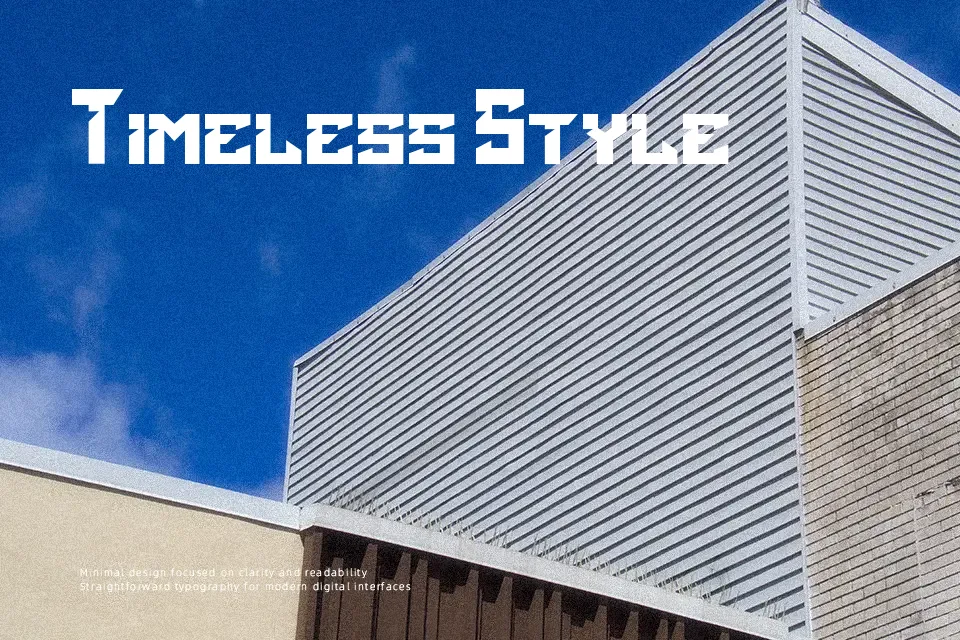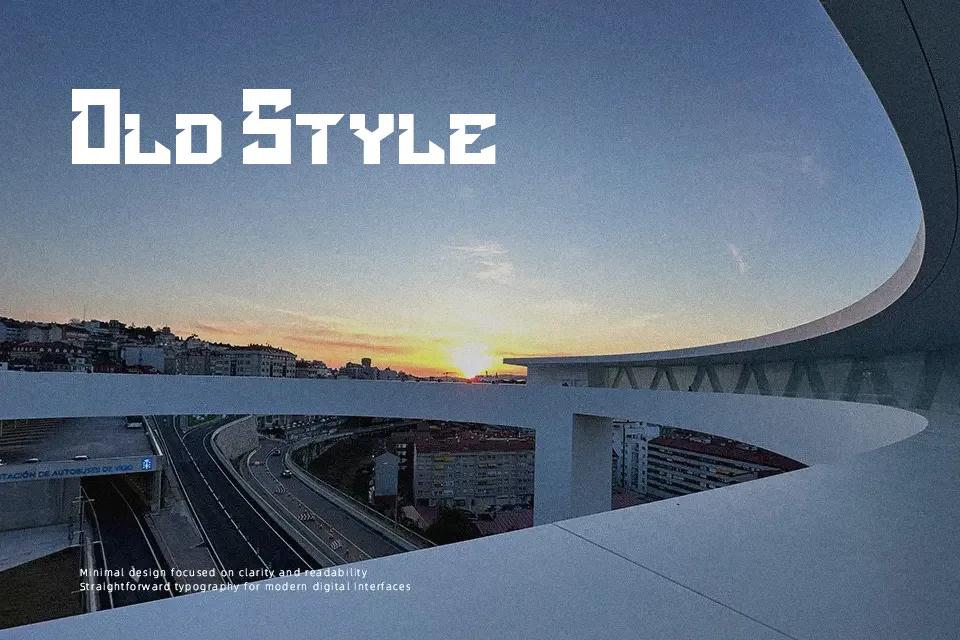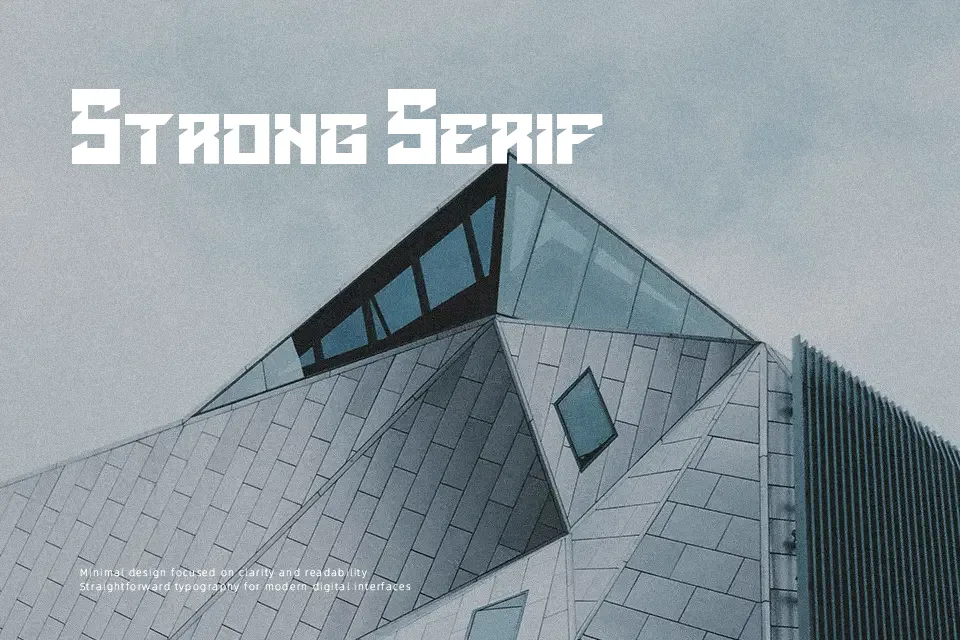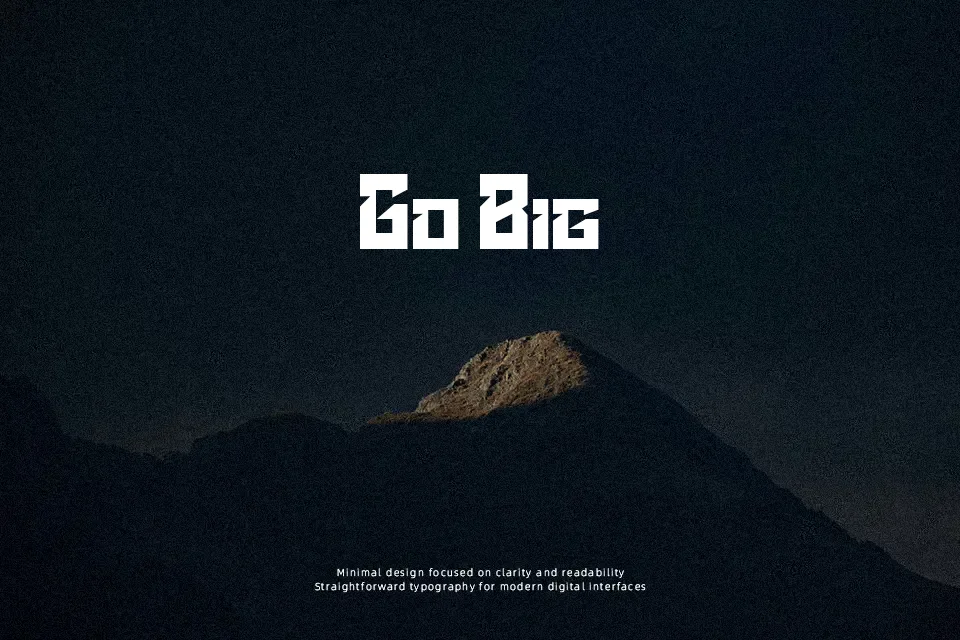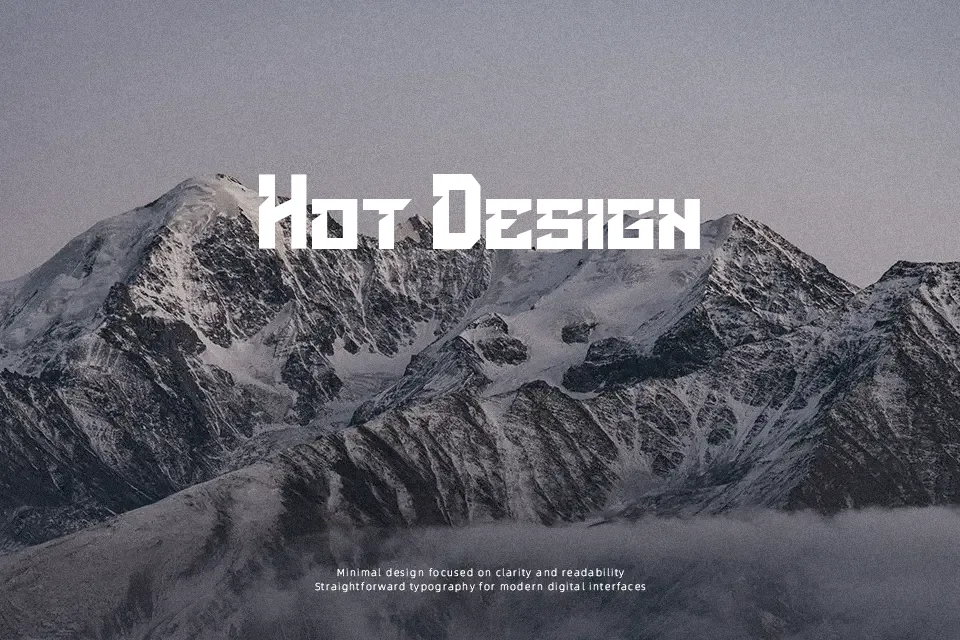
Acients Font
Wide letterforms, geometric construction, and sharp horizontal emphasis give Acients a distinctly futuristic character. The strokes are clean with low contrast, making the typeface read as both modern and slightly cold — more machine than manuscript. It suits blog cover headers, gaming posters, and digital editorial spreads well, particularly where a minimalist tech aesthetic is the goal. That said, its decorative personality makes it a poor fit for body text or anything requiring extended reading comfort. If you need versatility across print and screen at a large scale, it performs — but push it into small UI labels or formal documents and it starts to feel misplaced. Think of it as a display workhorse with a narrow stylistic lane.
Best For:- Sci-fi and gaming poster headlines
– Music event or album cover titles
– T-shirt and merchandise print graphics
– Blog or magazine cover headers
Not Ideal For:- Body text or long-form reading
– Corporate reports or formal documents
– Small-size UI labels or captions
– Minimalist luxury branding requiring refinement
Perfect for branding, fashion, and gaming, with a bold and decorative style.